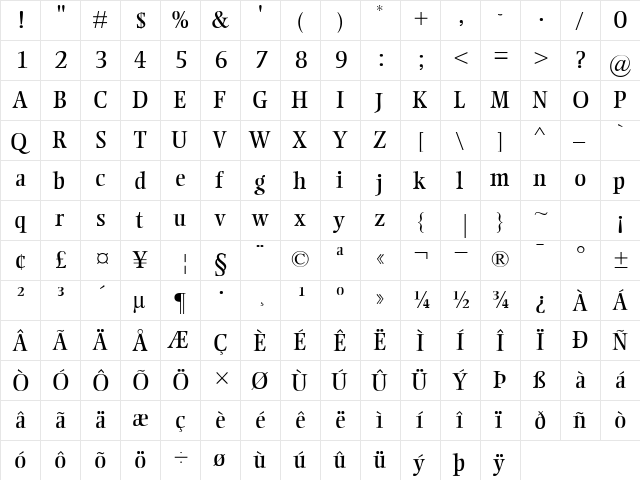
RosarioSSK Regular
Design Context for RosarioSSK Typeface
RosarioSSK is a composed and adaptable typeface that performs quietly and consistently across a wide range of design contexts.